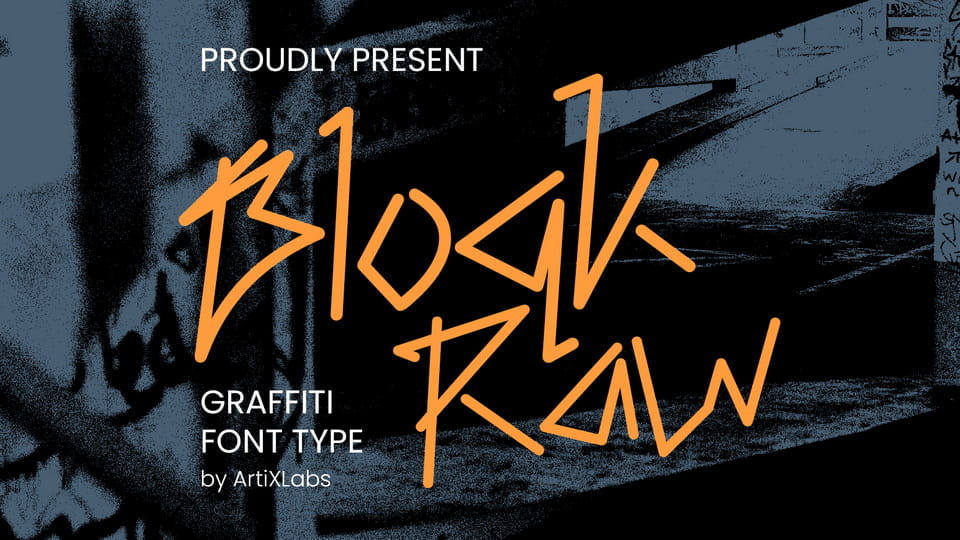
Download BlockRaw font, a raw urban graffiti font built with bold handstyle strokes and authentic street attitude. Inspired by underground tag culture, this display typeface is perfect for street fashion brands.
Designer: ArtiXLabs